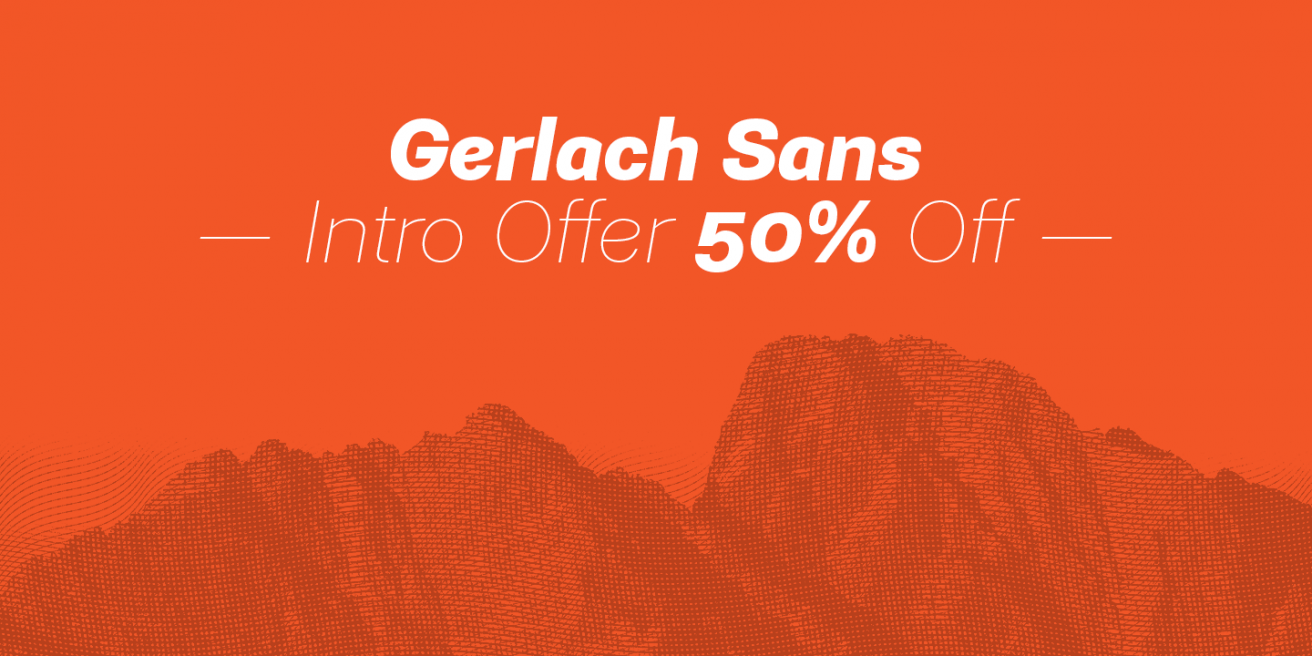
Gilroy is a modern geometric sans, built for optimal viewing on the web and in apps. It has a couple of free weights, so go try it out for yourself! |
Gilroy Radomir Tinkov
A brush script for the modern age, Viva Beautiful makes illustrations and photographs pop, and works great for any magazine or online setting. Youthful without looking cutesy, Viva Beautiful is a fantastic alternative to modern calligraphy. |
Gerlach Sans by Juraj Chrastina is a grotesque sans that is full of subtle details that shine when blown up to large sizes. It also works as text with its clean lines, so buy it and feel free to use it in everything. |
Designers are starting to branch out with their hand drawn and script fonts and that couldn’t make us happier. Indigo Blue follows that trend by incorporating brush elements without being a full-on brush script. Just thick enough to make an impression without being too heavy, Indigo Blue fits when you need legibility and style all in one. |
French street artist Mathieu Tremblin has a unique take on graffiti - making it actually readable. His Tag Cloud project involved taking existing graffiti, cataloging it, and re-tagging in a legible and organized way. Super cool and super creative. More here: [1] [2]
Yves Peters from FontShop boldly goes where no one has gone before and has put together an exhaustive look at the futuristic fonts featured in Star Trek movies and television shows. Resistance to enojoying this article is futile.
An art installation by DAKU in India relies on light to create an ever changing typographic landscape. The time lapse video of the sun passing overhead is really quite good.